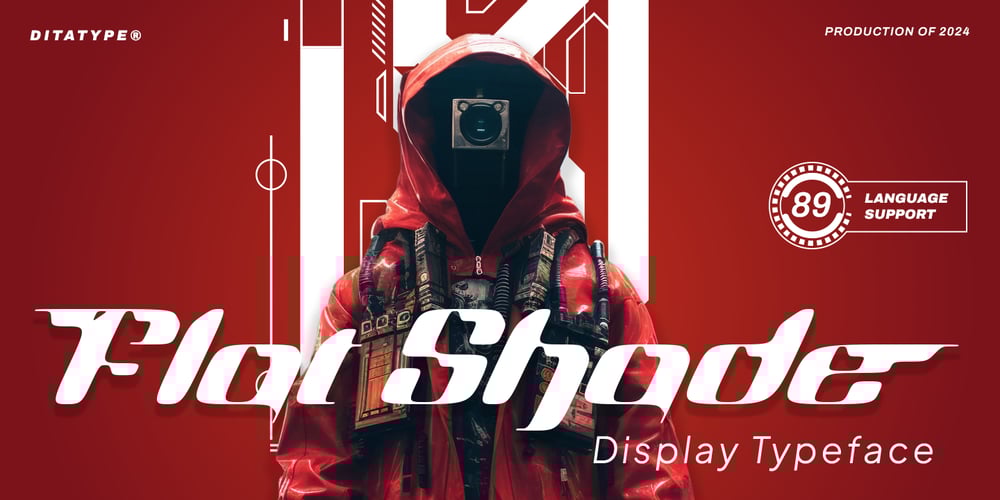
Flat Shade Font Family was designed by Donis Miftahudin and published by Ditatype. Flat Shade contains 1 styles and family package options. Flat Shade is a captivating display font that commands attention with its bold presence and distinctive style. Each letter in Flat Shade is meticulously designed to draw the eye and make an impact. What truly sets Flat Shade apart is its unique combination of visible contrast and an uneven outline, giving it a striking and memorable appearance. The visible contrast between thick and thin strokes adds depth and dimension to the font, enhancing its visual appeal. Meanwhile, the uneven outline adds an element of unpredictability, creating an intriguing and dynamic texture that sets Flat Shade apart from other display fonts. Despite its boldness and irregular outline, Flat Shade maintains a sense of balance and harmony. In addition, enjoy the features here.Features: Ligatures Stylistic Sets Multilingual Supports PUA Encoded Numerals and Punctuations Flat Shade fits in headlines, logos, posters, flyers, branding materials, greeting cards, print media, editorial layouts, and many more designs. Find out more ways to use this font by taking a look at the font preview.Thanks for purchasing our fonts. Hopefully, you have a great time using our font. Feel free to contact us anytime for further information or when you have trouble with the font. Thanks a lot and happy designing.